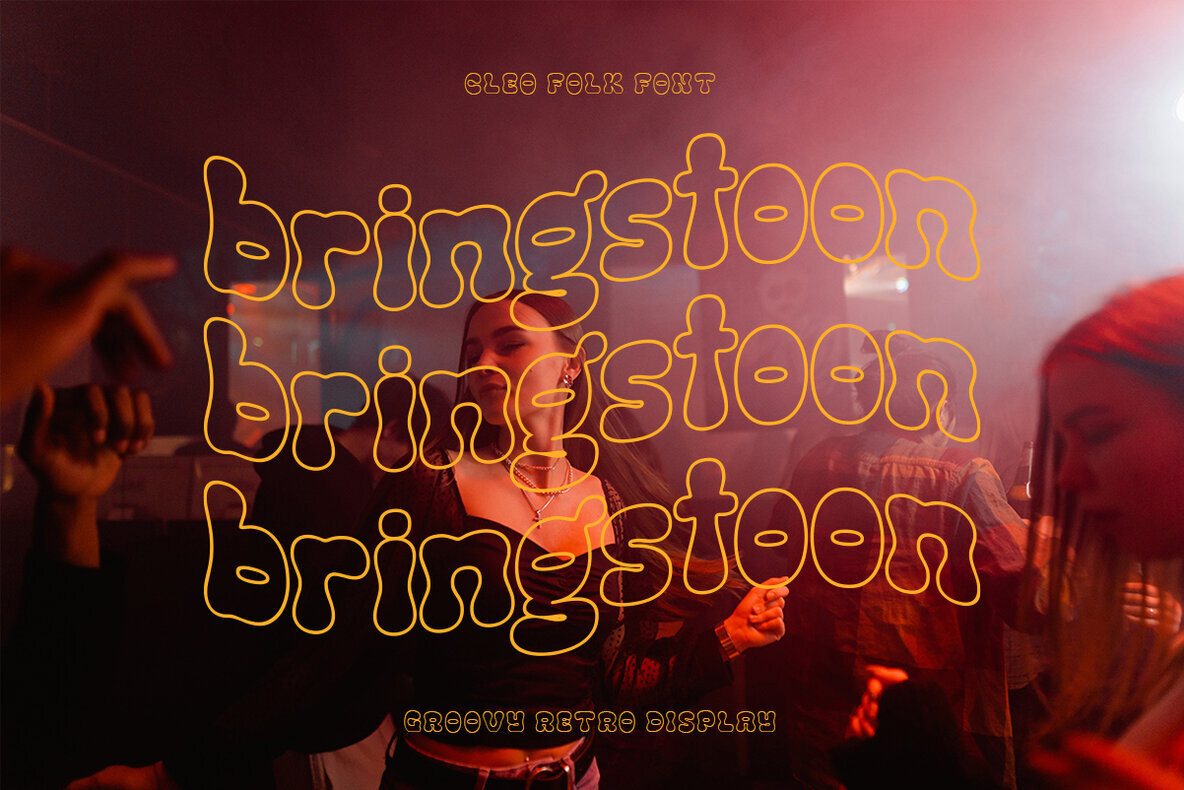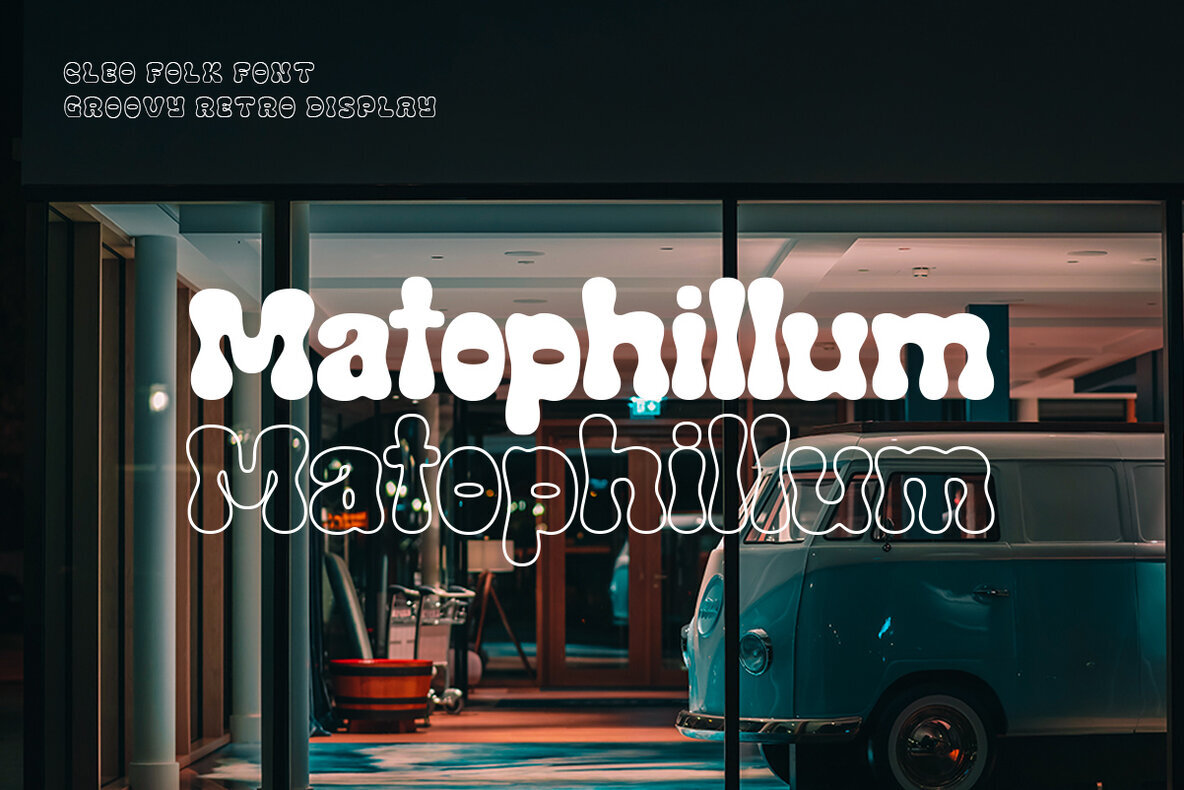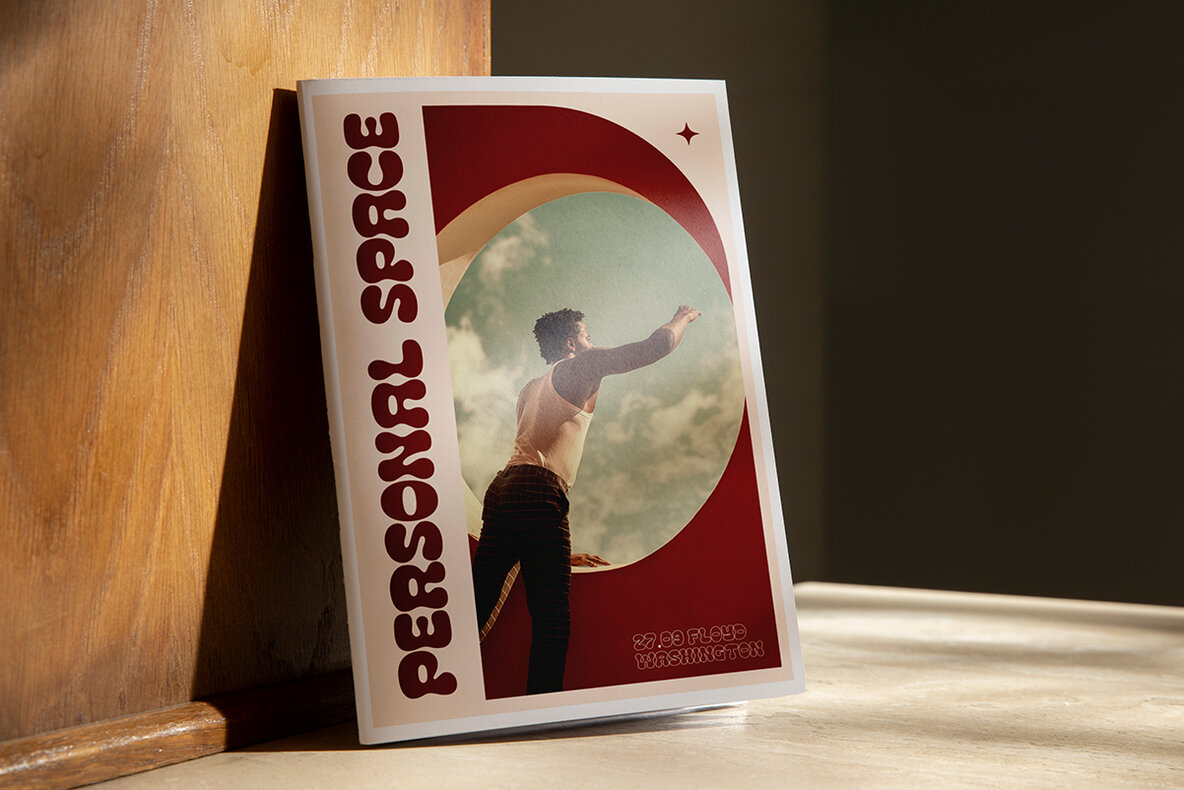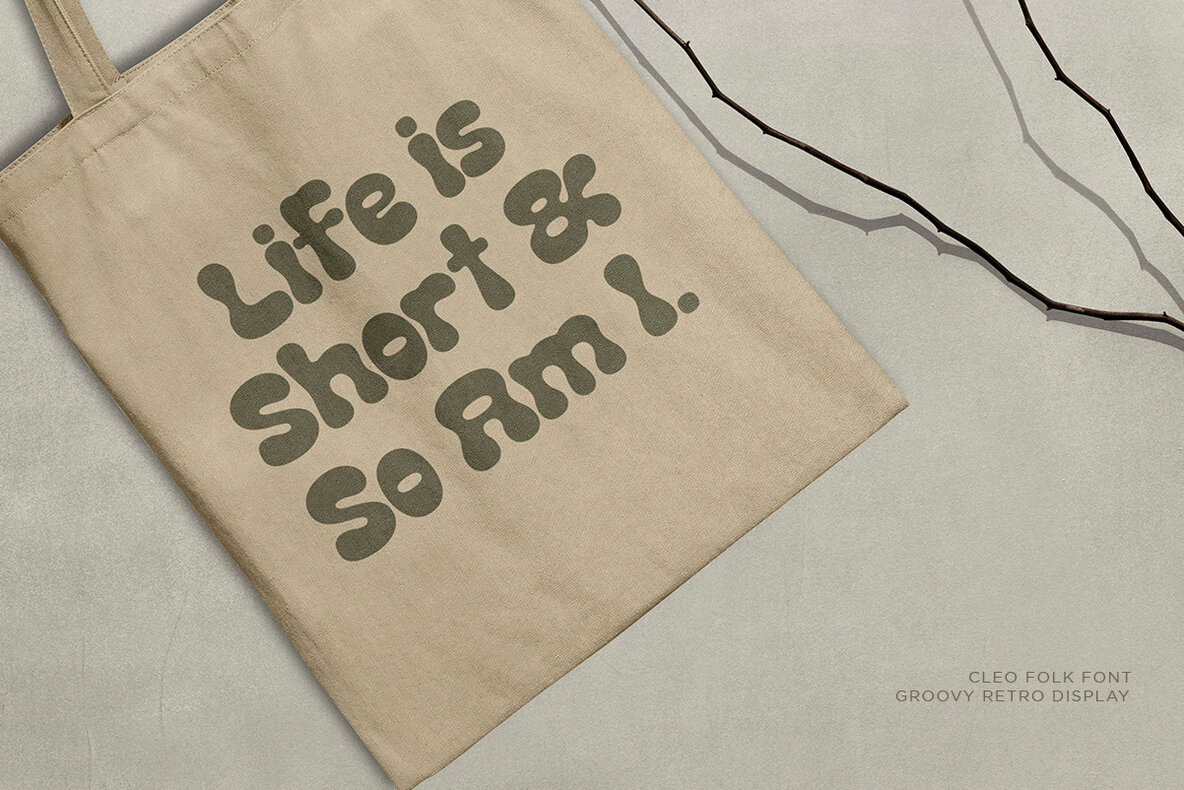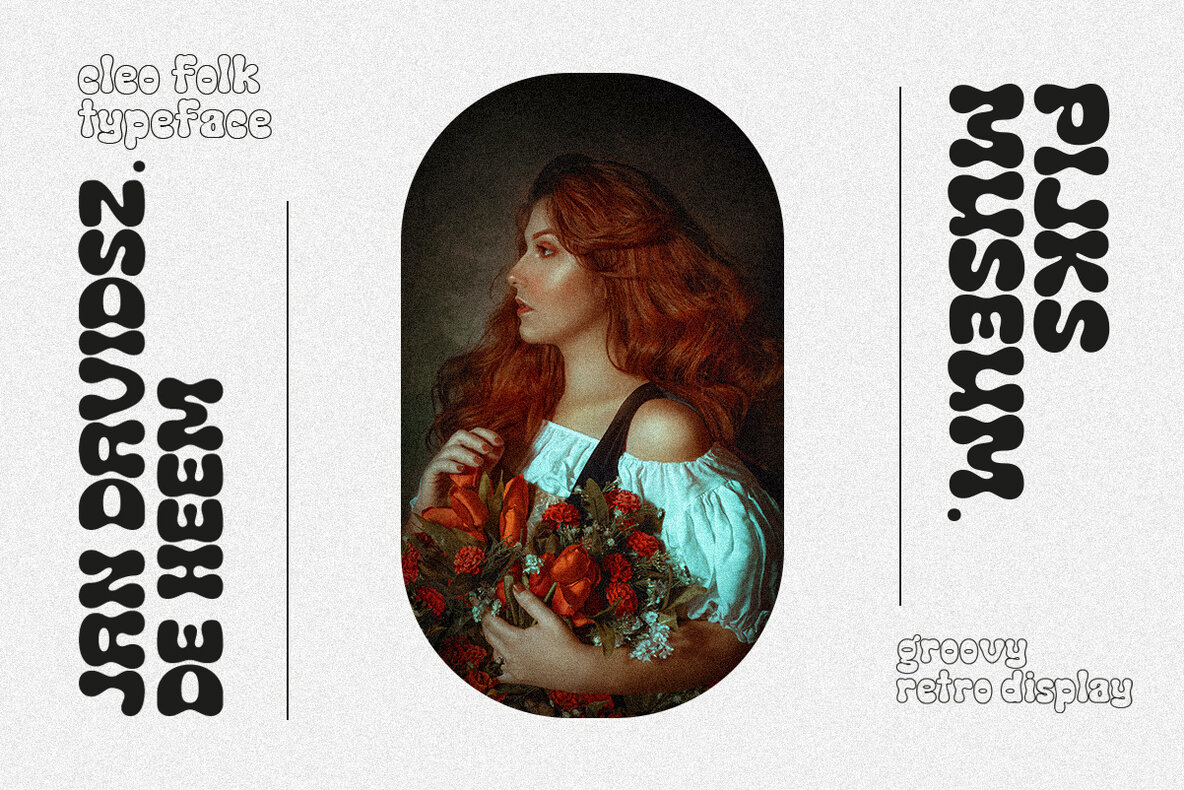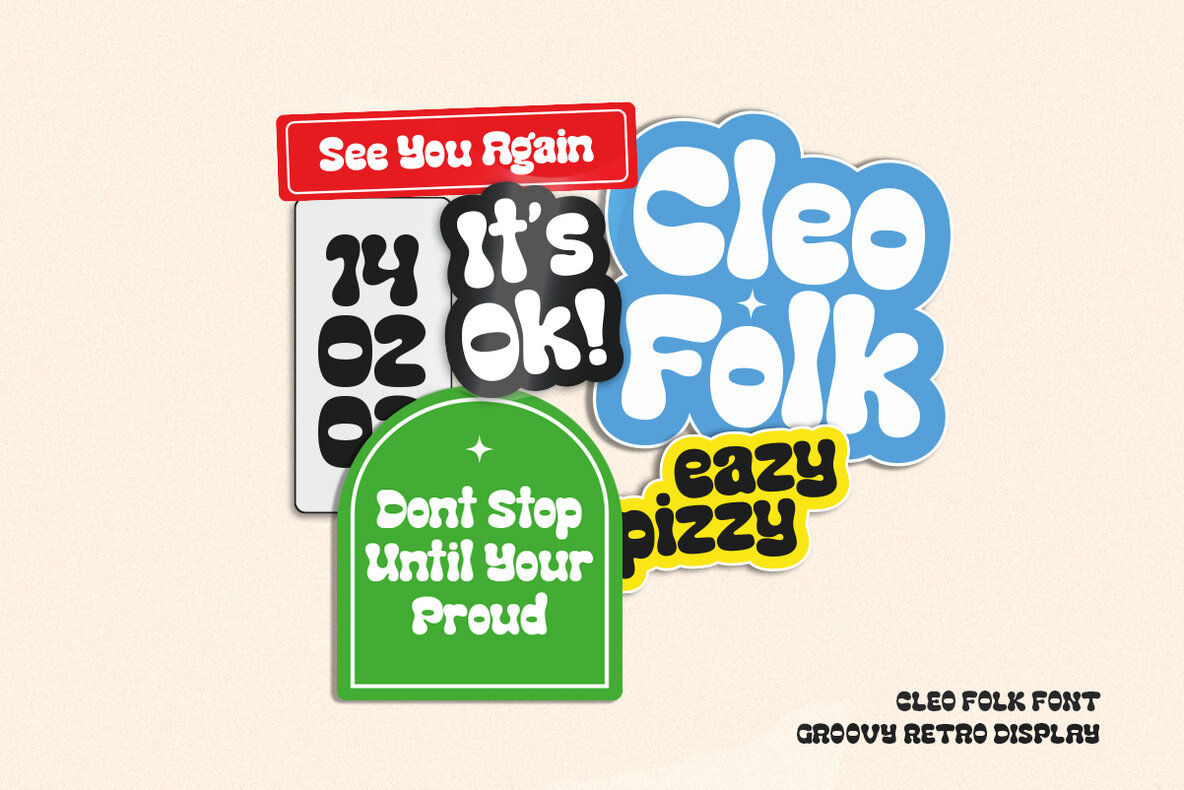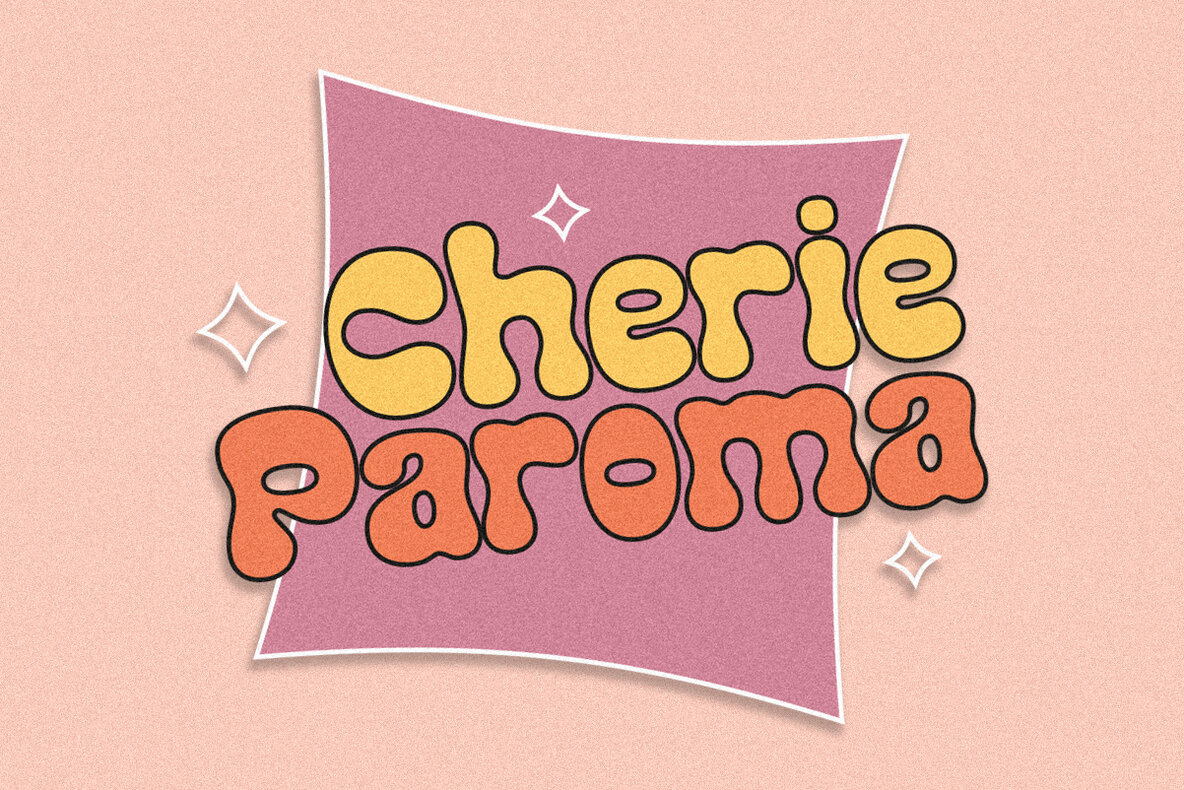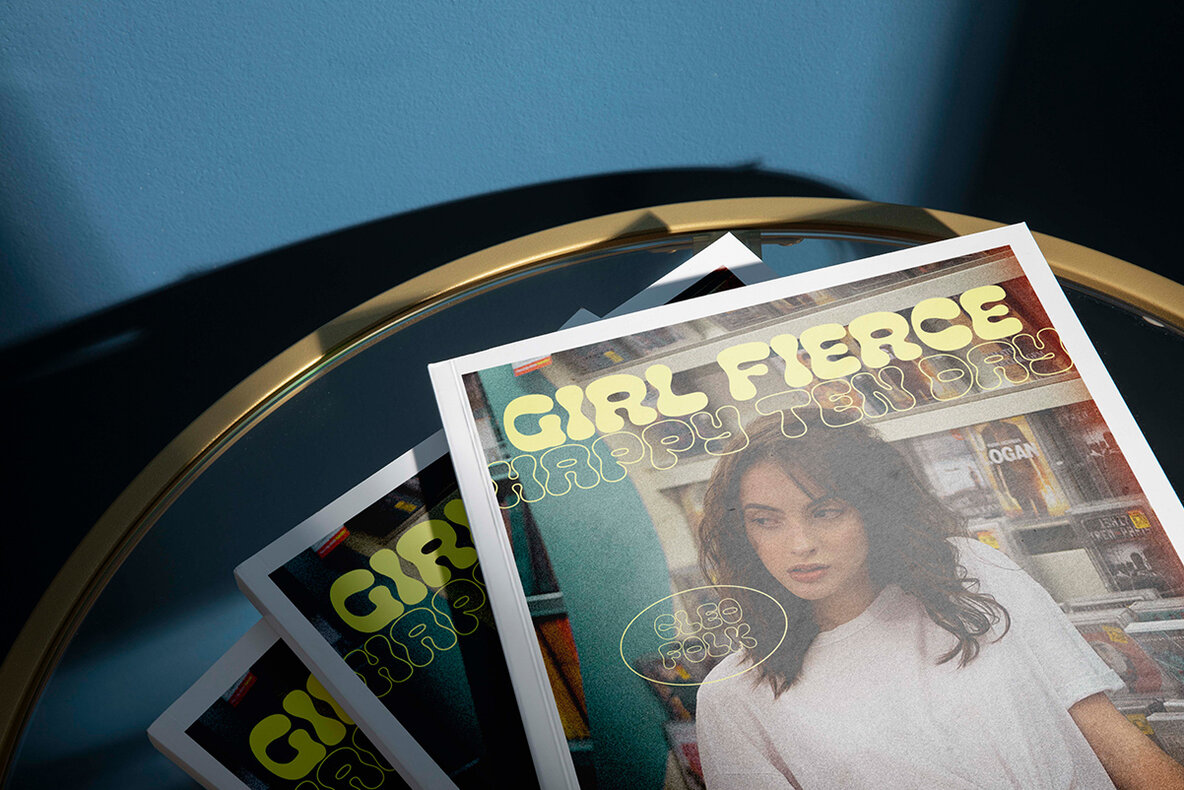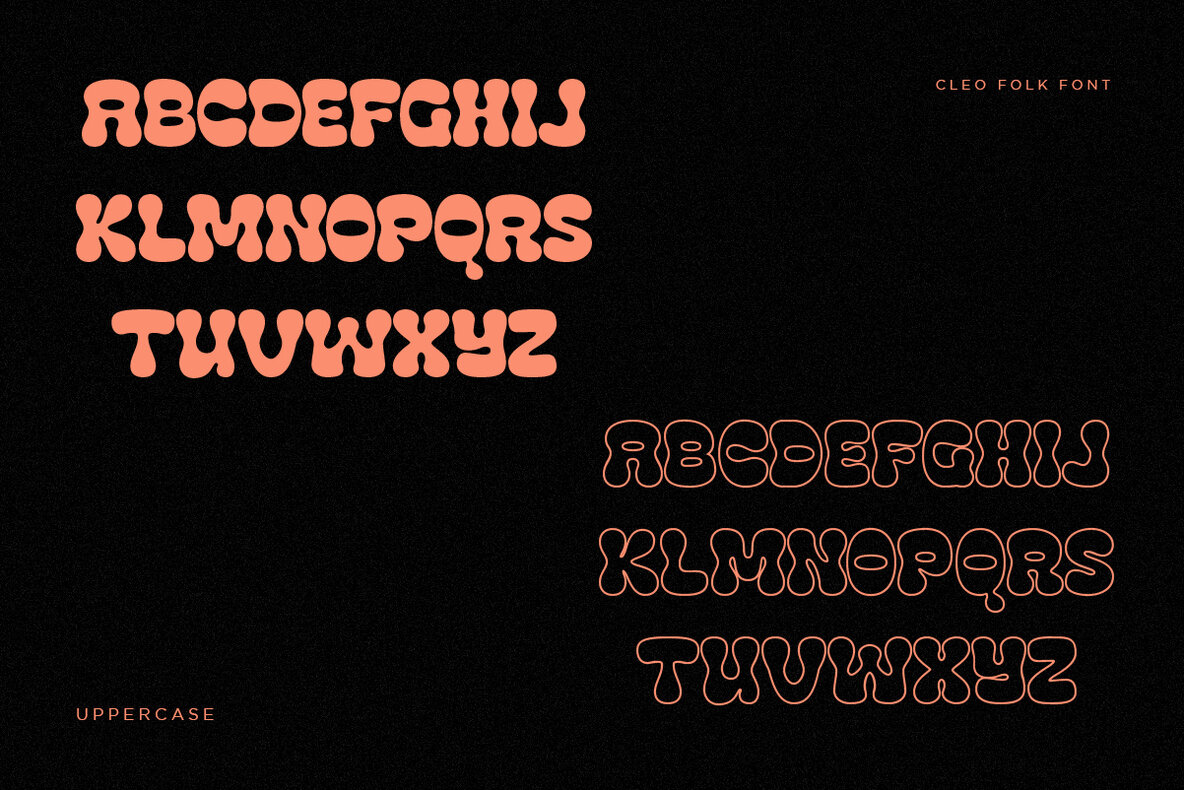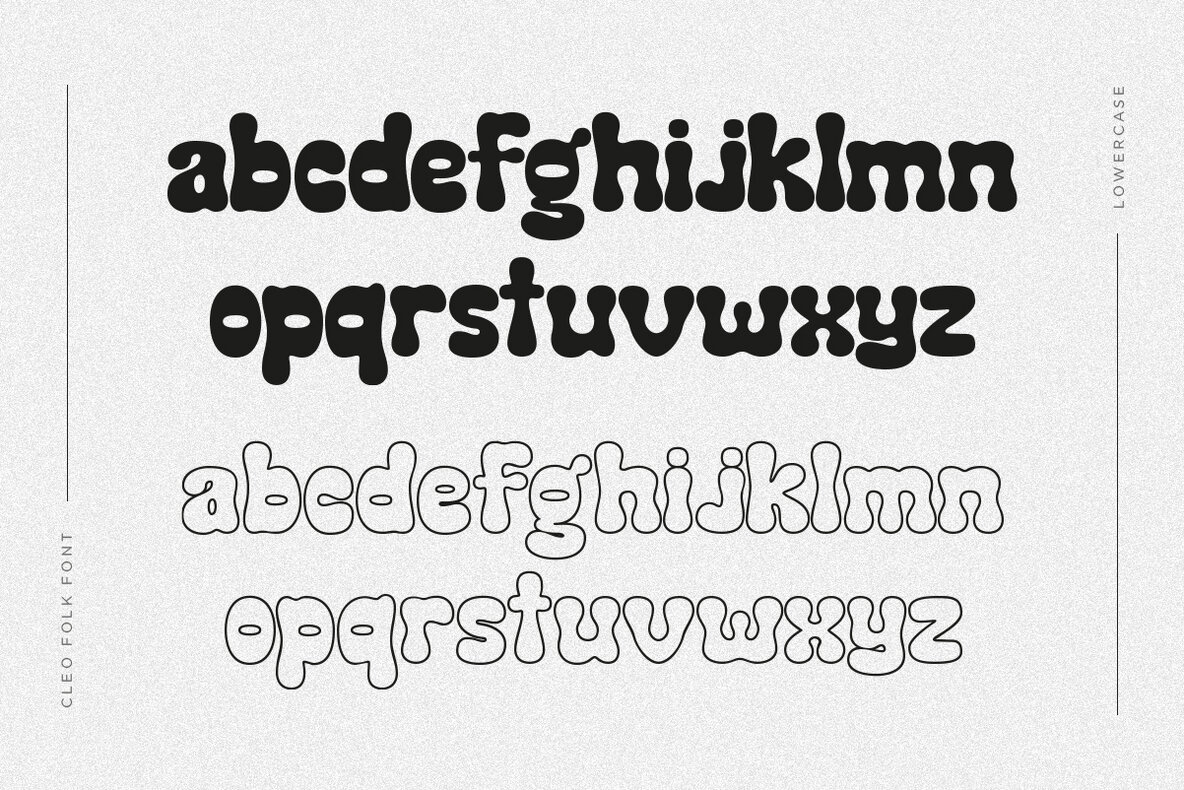
Cleo Folk Font
Cleo Folk Outline Regular
Cleo Folk Regular
The Cleo Folk typeface is a captivating display font that draws inspiration from the retro and vintage waves of design. Perfect for projects seeking a nostalgic yet vibrant touch, Cleo Folk provides designers with a font that exudes character and charm. Usage Considerations: No special software is necessary, making Cleo Folk a versatile choice for any standard program or website application that supports standard fonts.Cleo Folk: Groovy Display Character with Retro Appeal